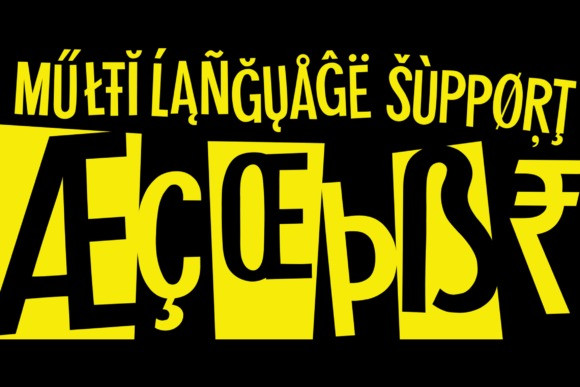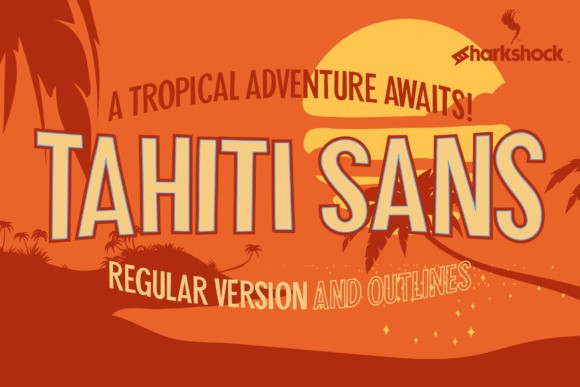
Tahiti Sans Font
Tahiti Sans Font is a playful, all caps sans serif font, available in 2 versions. Masterfully designed to become a true favorite, this font has the potential to bring each of your creative ideas to the highest level!